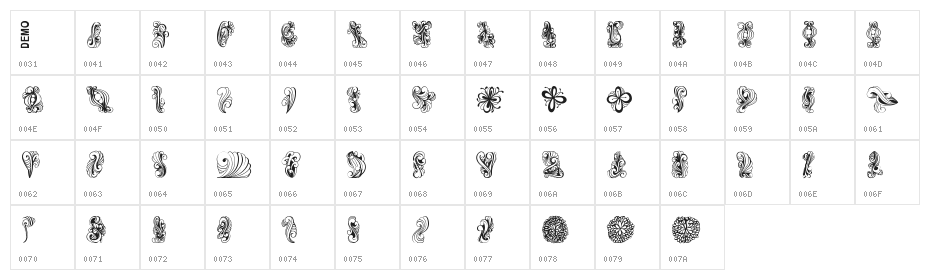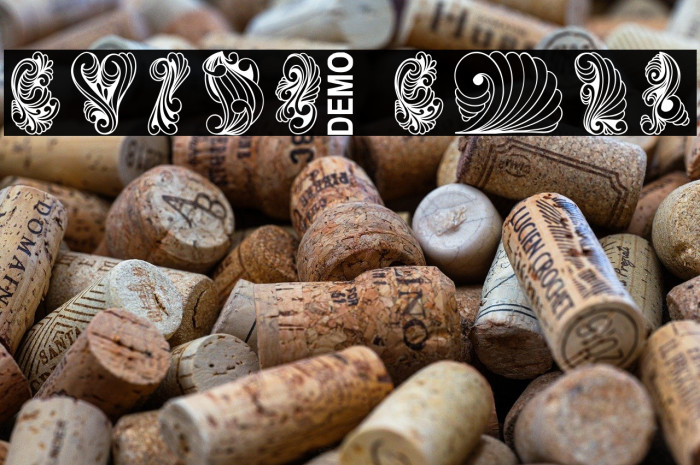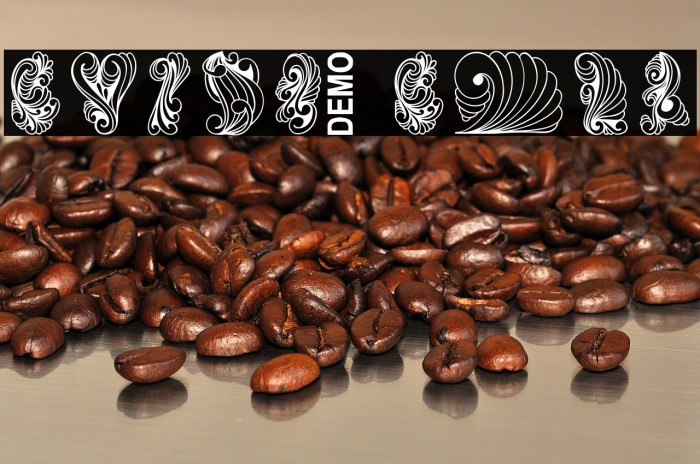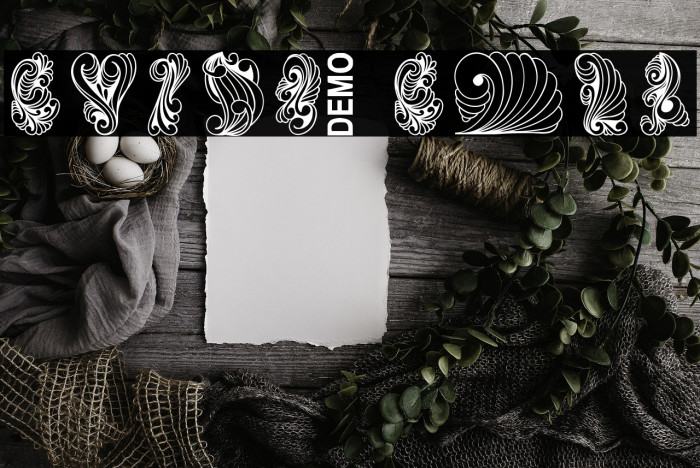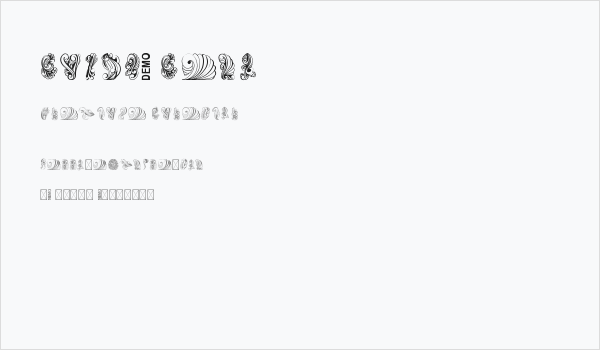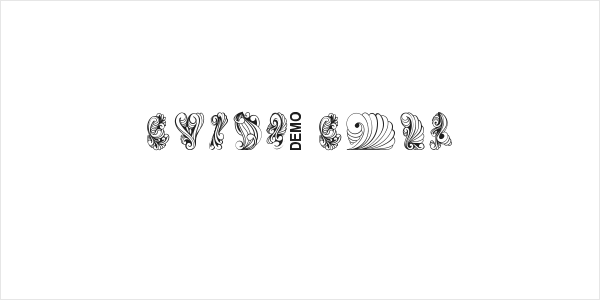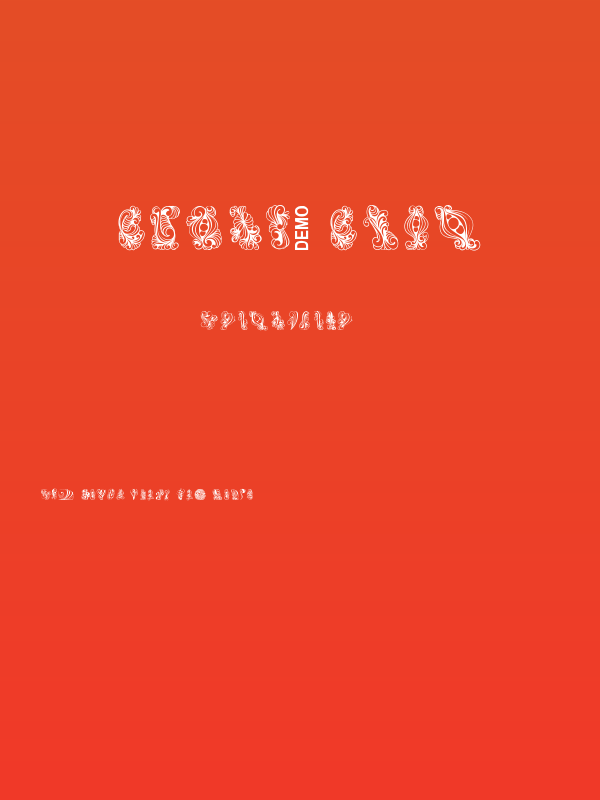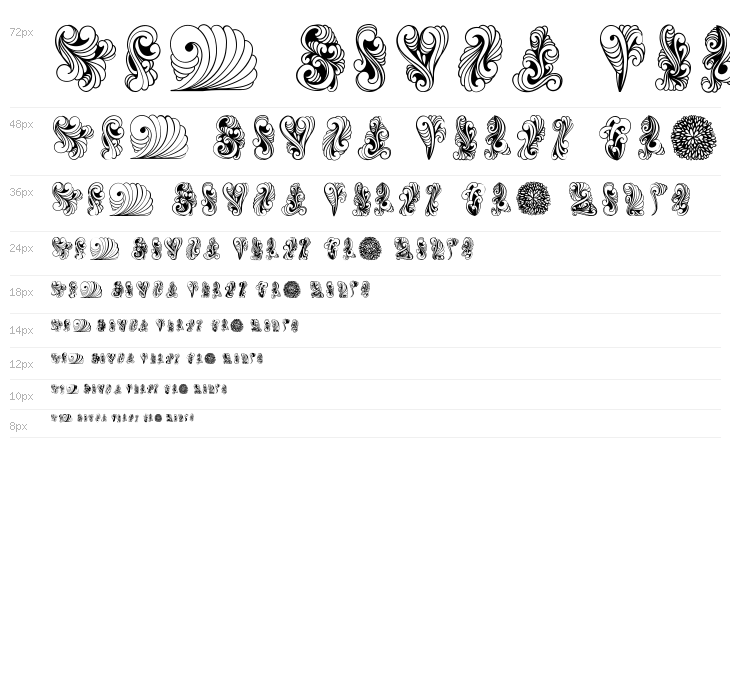
Dings1 Demo Font
Dings1 Demo Description
This font is a highly decorative and ornamental typeface, characterized by intricate swirls and flourishes that give each character a unique and artistic appearance. The design is reminiscent of Victorian or Baroque styles, with elaborate detailing that makes it stand out as a display font. Each letter and symbol is crafted with a high level of detail, making it suitable for projects that require a touch of elegance and sophistication. The font's ornate nature makes it less suitable for body text but ideal for decorative purposes. The characters are consistent in their elaborate style, providing a cohesive look across the alphabet and symbols.
| Use Case | Logos, Headlines, Decorative elements |
| Proposed Projects | Ideal for wedding invitations, luxury branding, decorative posters, and artistic projects. |